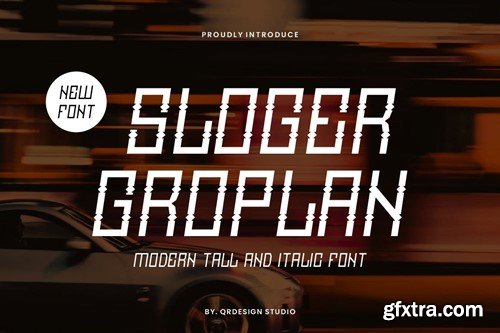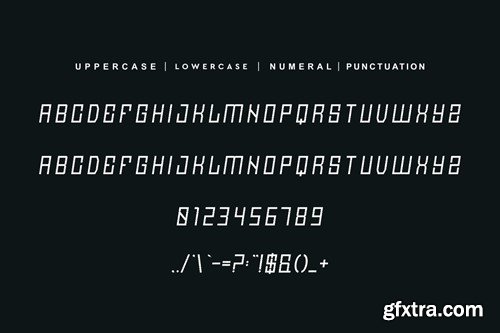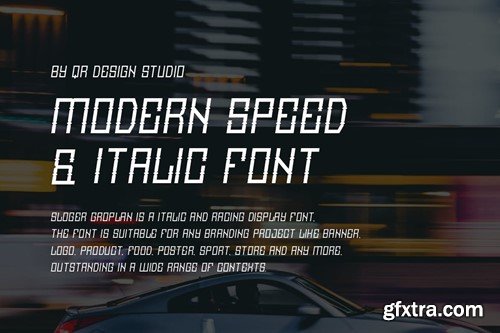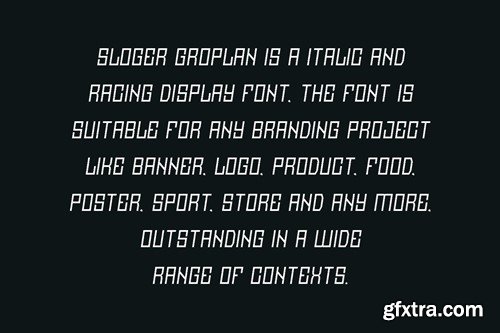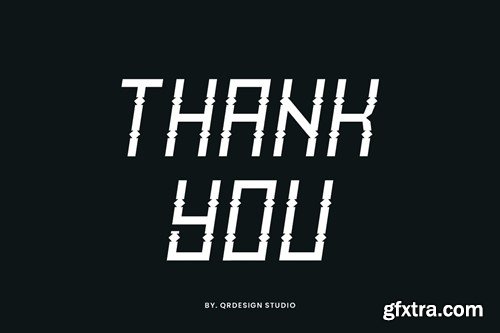
Sloger Groplan - 大胆斜体字体 AMCYDTD
Sloger Groplan - Tall & Italic Font AMCYDTD
Sloger Groplan - Tall & Italic Font
Sloger Groplan Font is a italic and authentic display font. The font is suitable for any branding project like poster, logo, sport, and many more. Outstanding in a wide range of contexts.